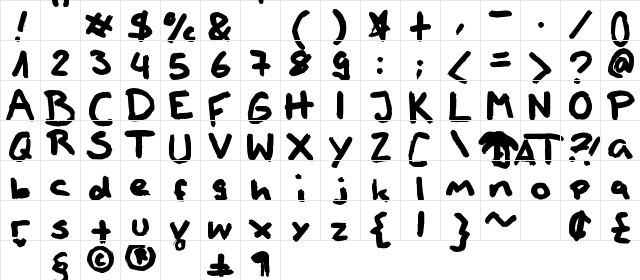
Fat of the Land Regular
Design Context for Fat of the Land Typeface
Fat of the Land is a composed and adaptable typeface that performs quietly and consistently across a wide range of design contexts.